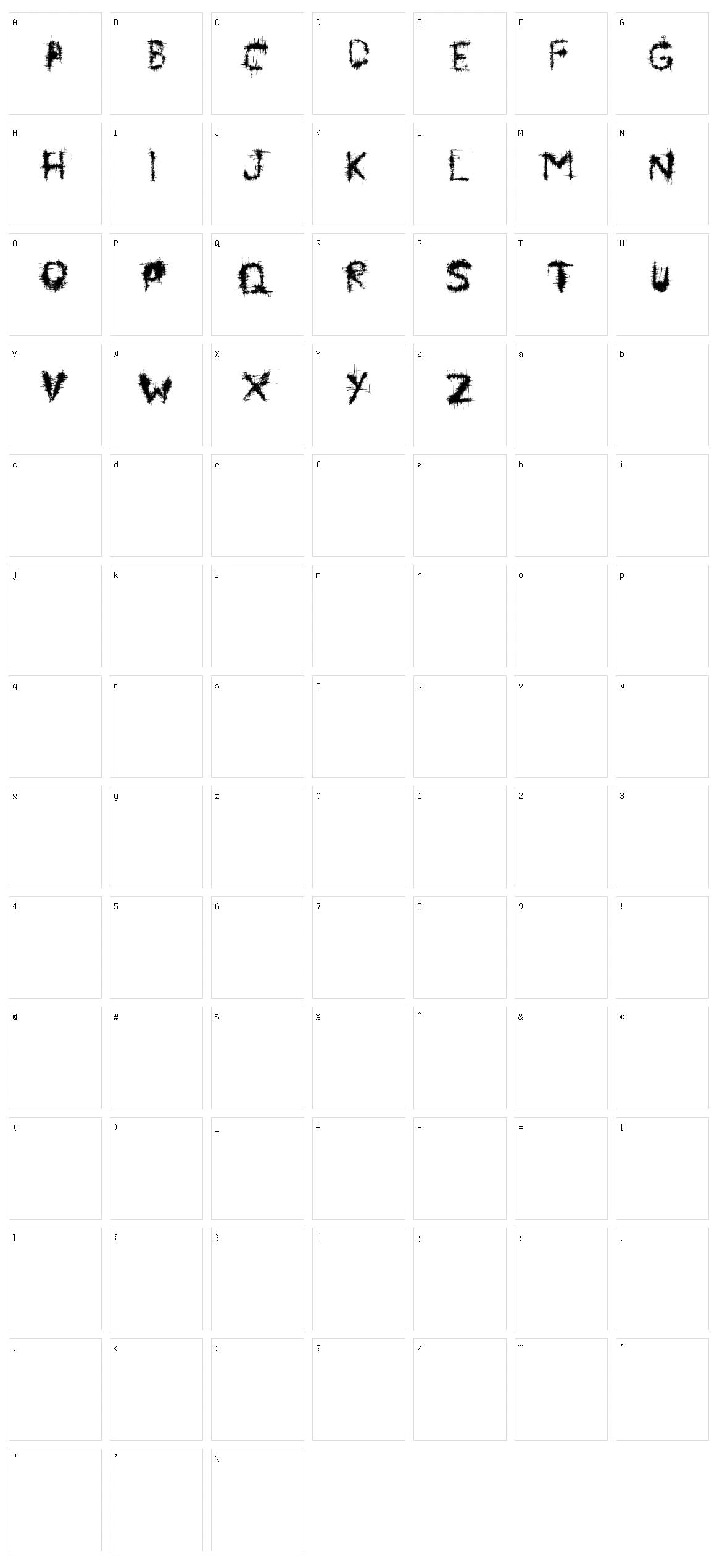
The free font Symbiote is carefully designed by Abdi Adam, showcasing a thoughtful balance of creativity and usability and falls under the Horror font style. When you download the ZIP file, it contains only 438.99 KB of font files, making it lightweight and quick to download. Please review the license details below to understand permitted usage and distribution rights. If license information is not available, we recommend using this font for personal projects only or contacting the author directly for commercial usage permissions.